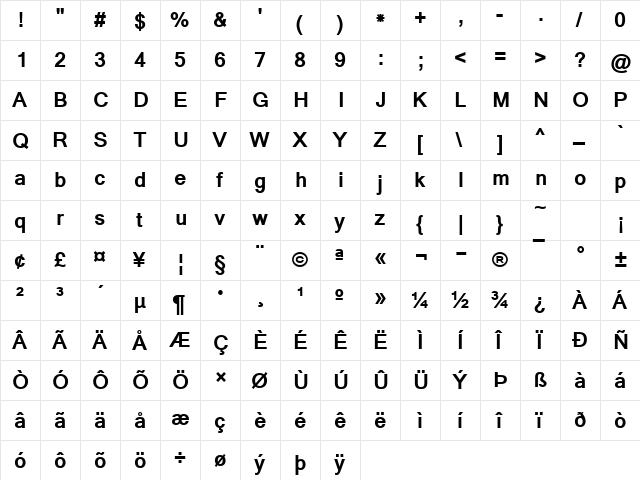
Raavi Bold
| Designer | Raghunath Joshi (Type Design Director), Apurva Joshi |
Design Context for Raavi Typeface
Raavi offers clean, dependable letterforms without strong stylistic allegiance, making it a practical choice for designers who need flexibility. The heavy weight commands attention and anchors typographic hierarchies.